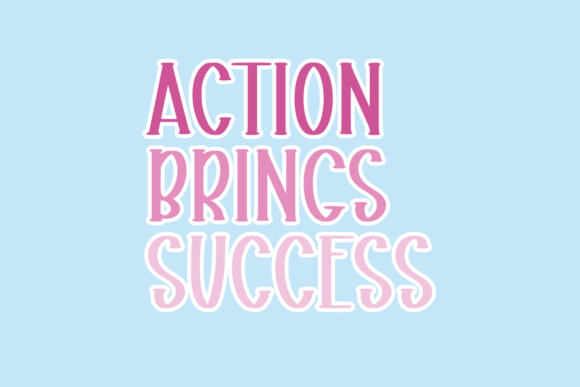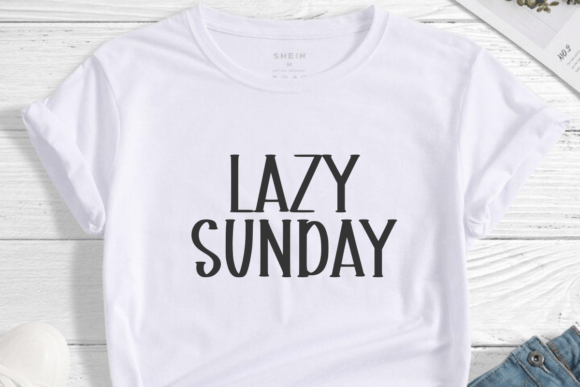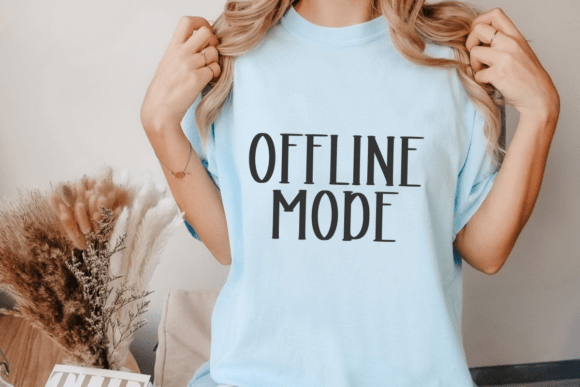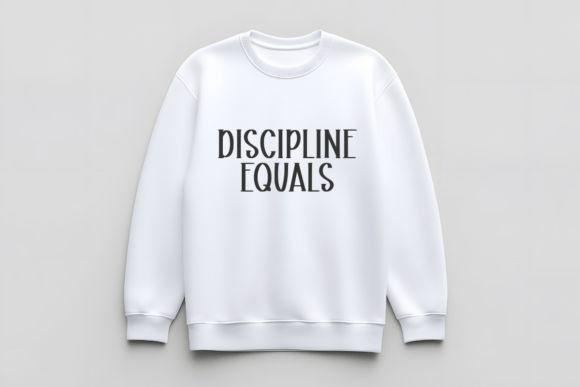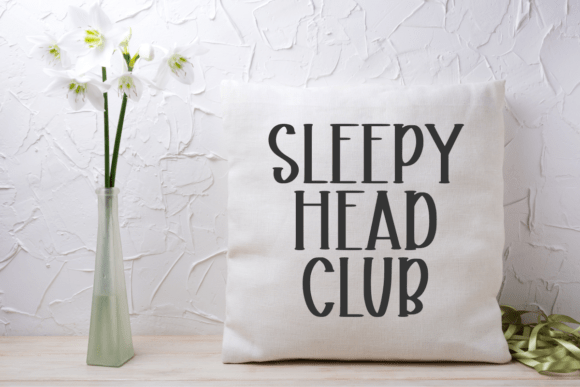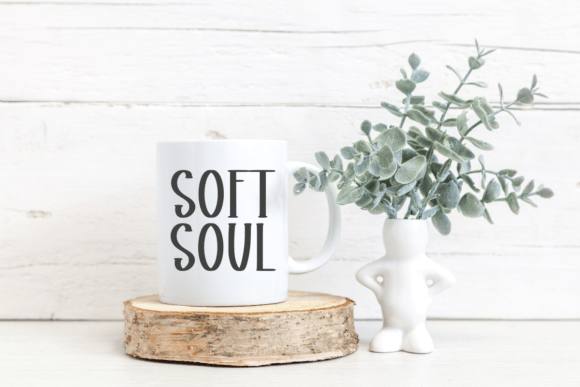
Discover the Sweet Charm of Beauty Teacher Font
As a crafter, there’s nothing quite like the thrill of creating something special for a loved one – whether it’s a handmade card, a personalized gift tag, or a customized journal page. The moment you see the finished project come together, you can’t help but feel a sense of pride and satisfaction. But what makes a project truly special is the font you choose to use. That’s where Beauty Teacher Font comes in – a charming sans serif handwriting font that brings a warm, handcrafted feel to your designs.
This delightful font is perfect for crafty moms, educators, and designers who want to add a touch of personality to their projects. With its simple strokes and smooth curves, Beauty Teacher Font is easy to cut using Cricut and Silhouette, making it a valuable addition to any crafting toolkit.
Beauty Teacher Font Key Features
- Unique Characteristics: Elegant, modern, and sophisticated design; suitable for beauty, fashion, and lifestyle-related projects
Beauty Teacher Font Review
When I first laid eyes on the Beauty Teacher Font, I was immediately drawn in by its elegant, flowing design. The font is perfect for any brand looking to convey a sense of sophistication and refinement. ✨ The subtle, rounded edges and delicate lines give it a touch of femininity, making it ideal for beauty and wellness brands.
- Perfect for beauty and wellness brands looking to convey a sense of sophistication
- Elegant, flowing design that adds a touch of femininity
- Works well in both digital and print formats
However, I do have a few concerns about the font’s versatility. ⚠️ For one, it may not be suitable for brands that require a more edgy or modern look. Additionally, the font can become difficult to read at smaller sizes, which may limit its use in certain applications.
Overall, I think the Beauty Teacher Font is a great addition to any designer’s toolkit. While it may have some limitations, its unique design and versatility make it a great choice for the right brand. With a little creativity, I think it has the potential to be a real showstopper.
The Beauty Teacher Font is ideal for:
- Beauty and wellness branding
- Product labels and packaging
For optimal results, use the Beauty Teacher Font in conjunction with other elegant and modern design elements.